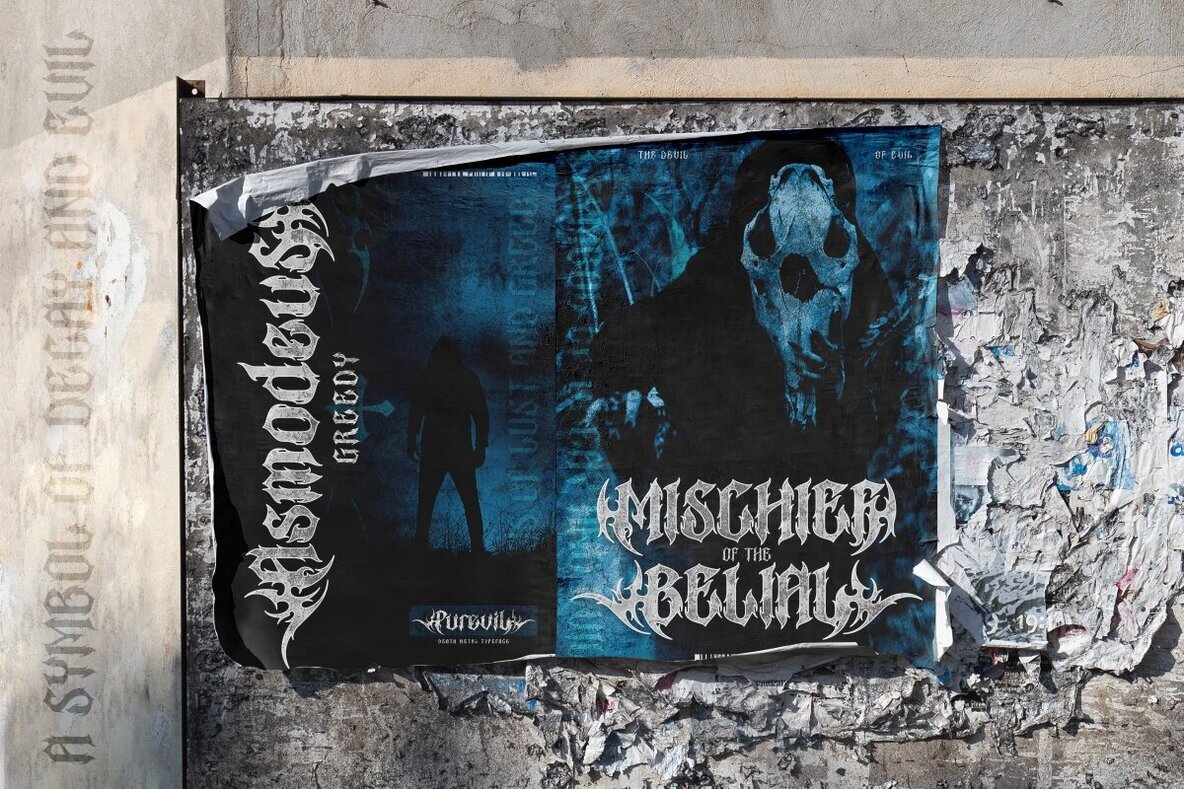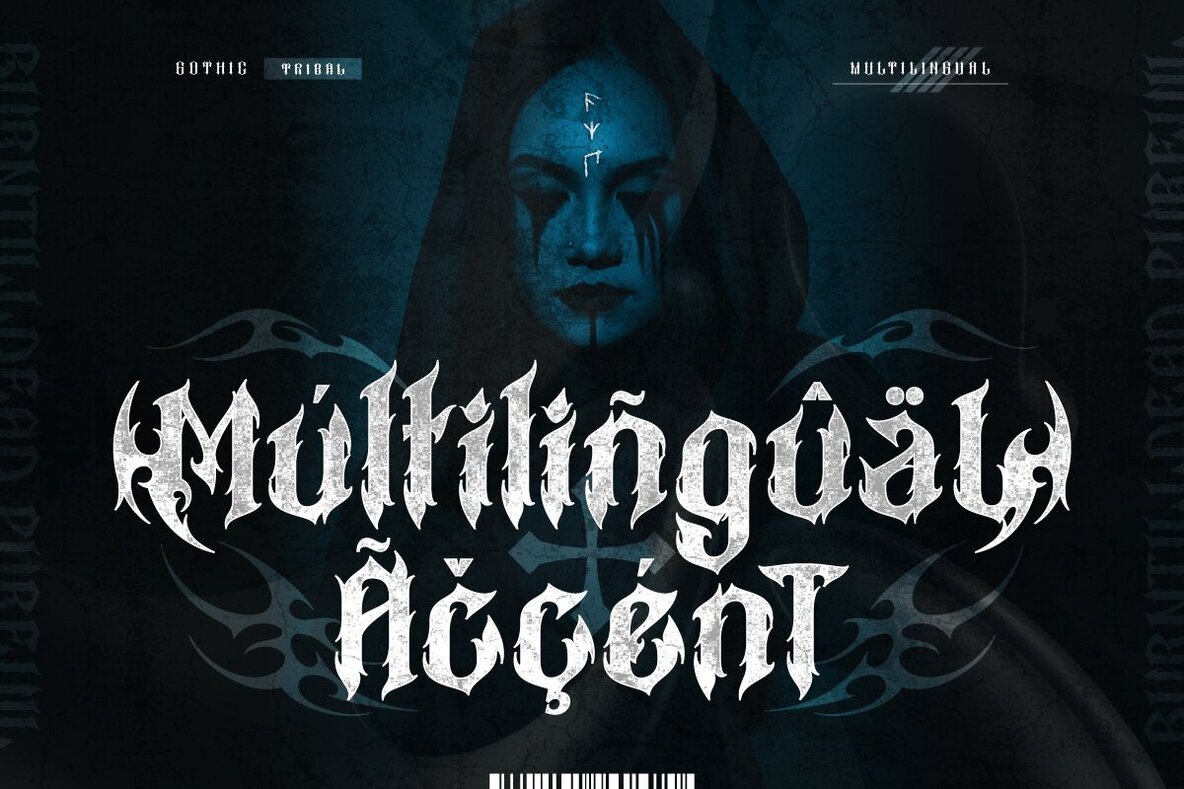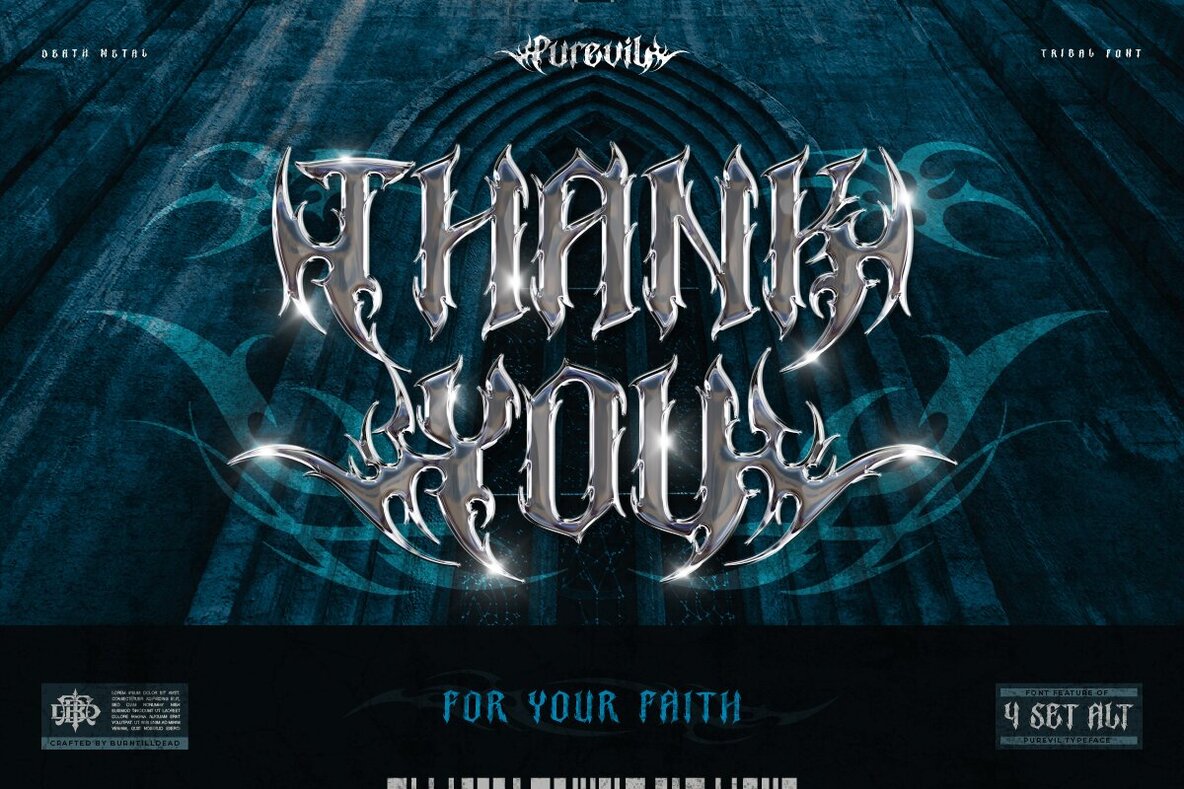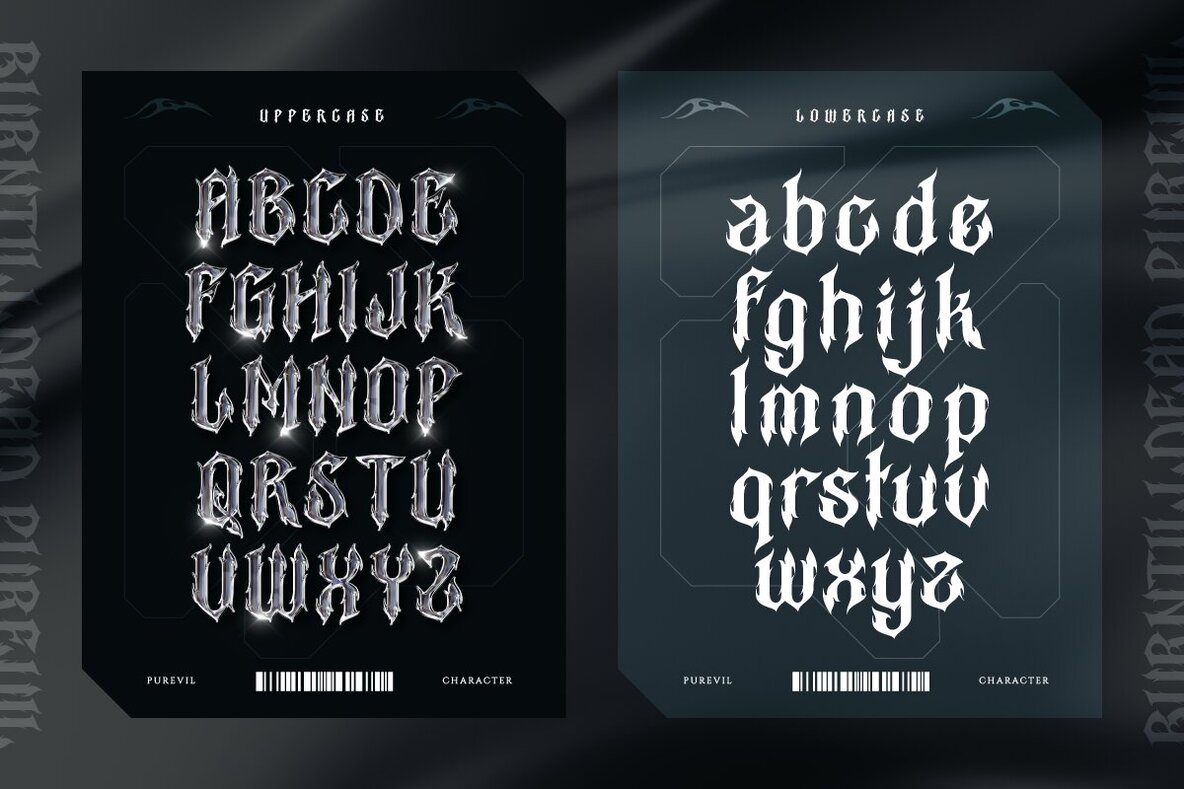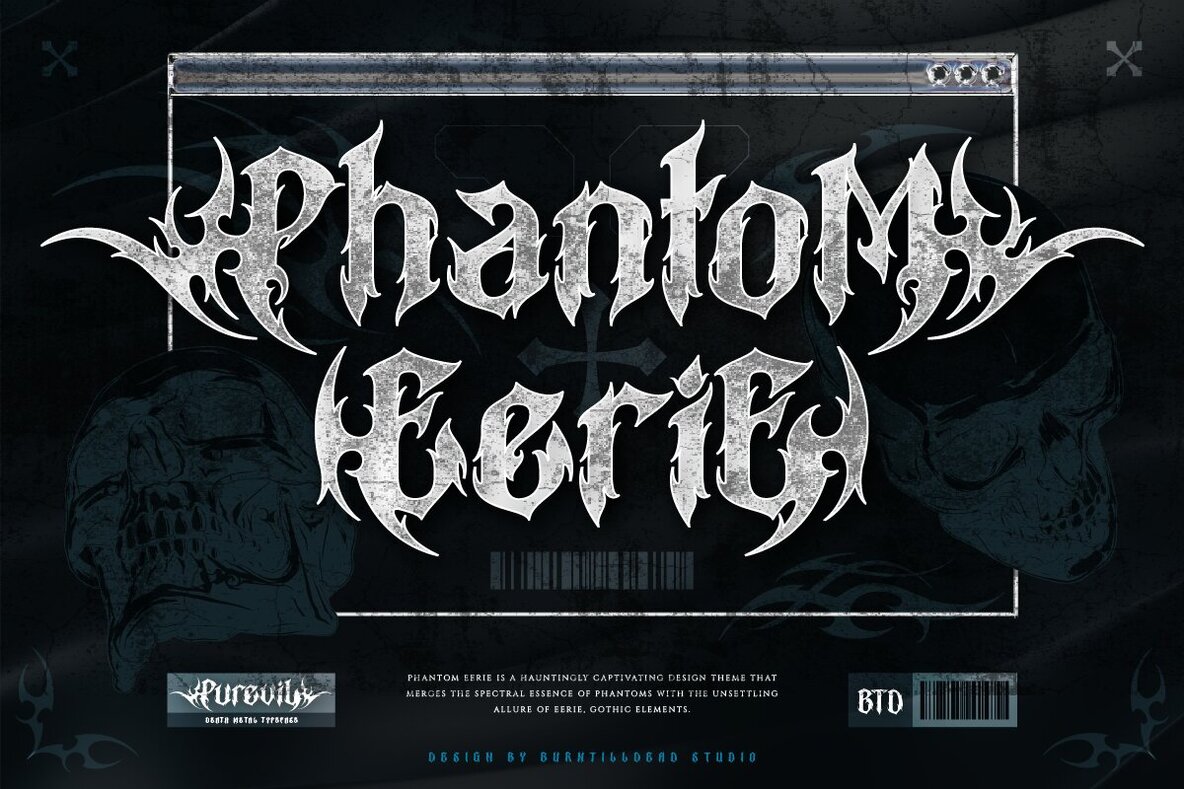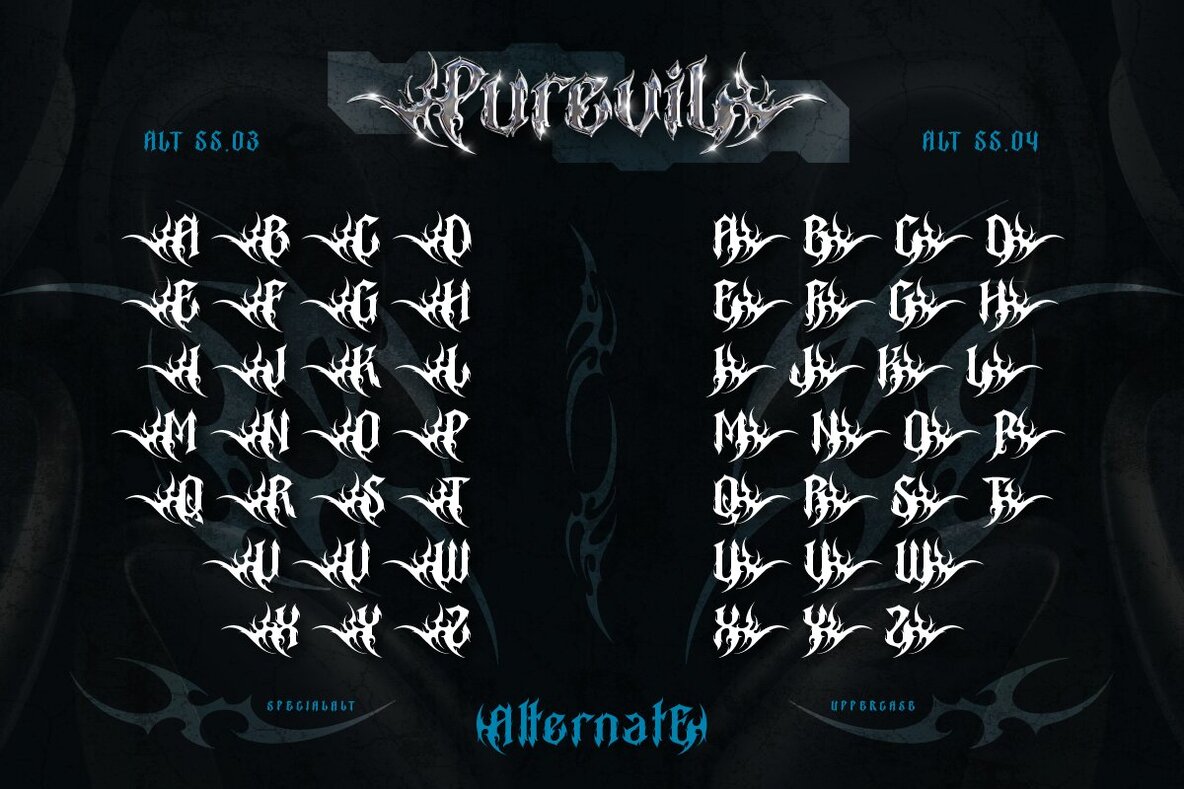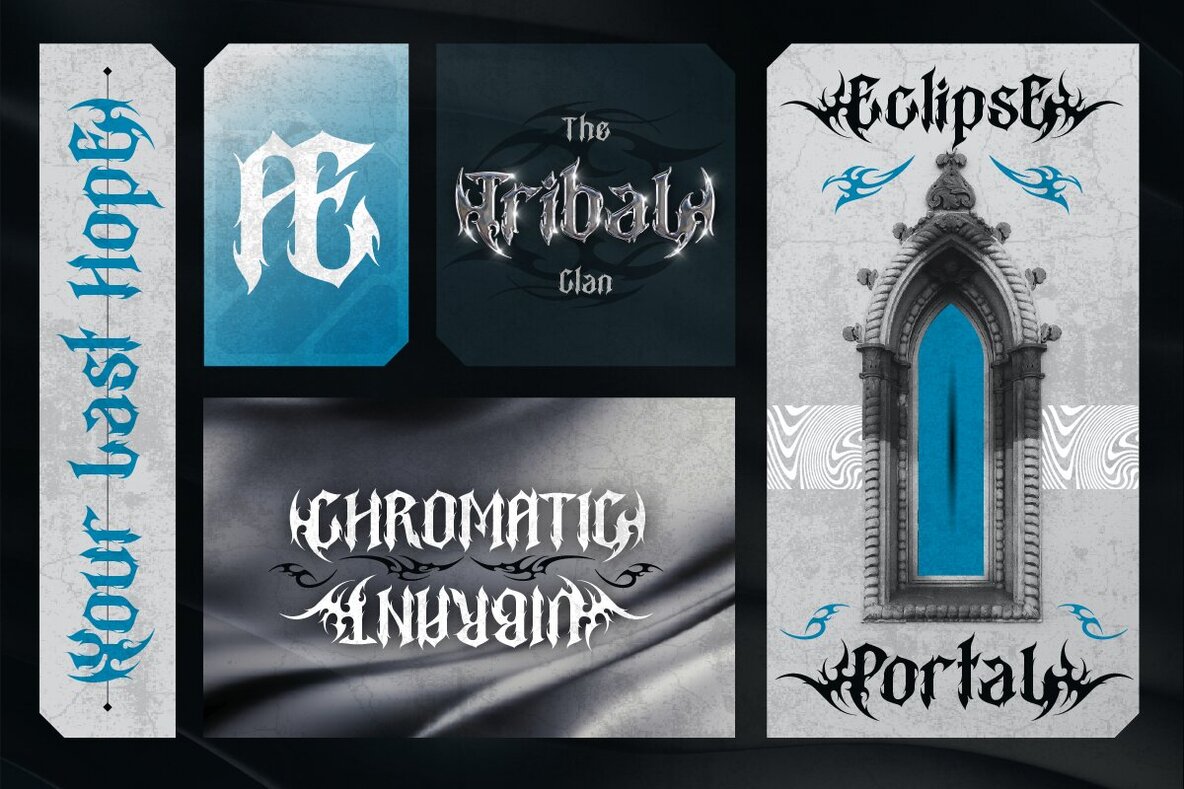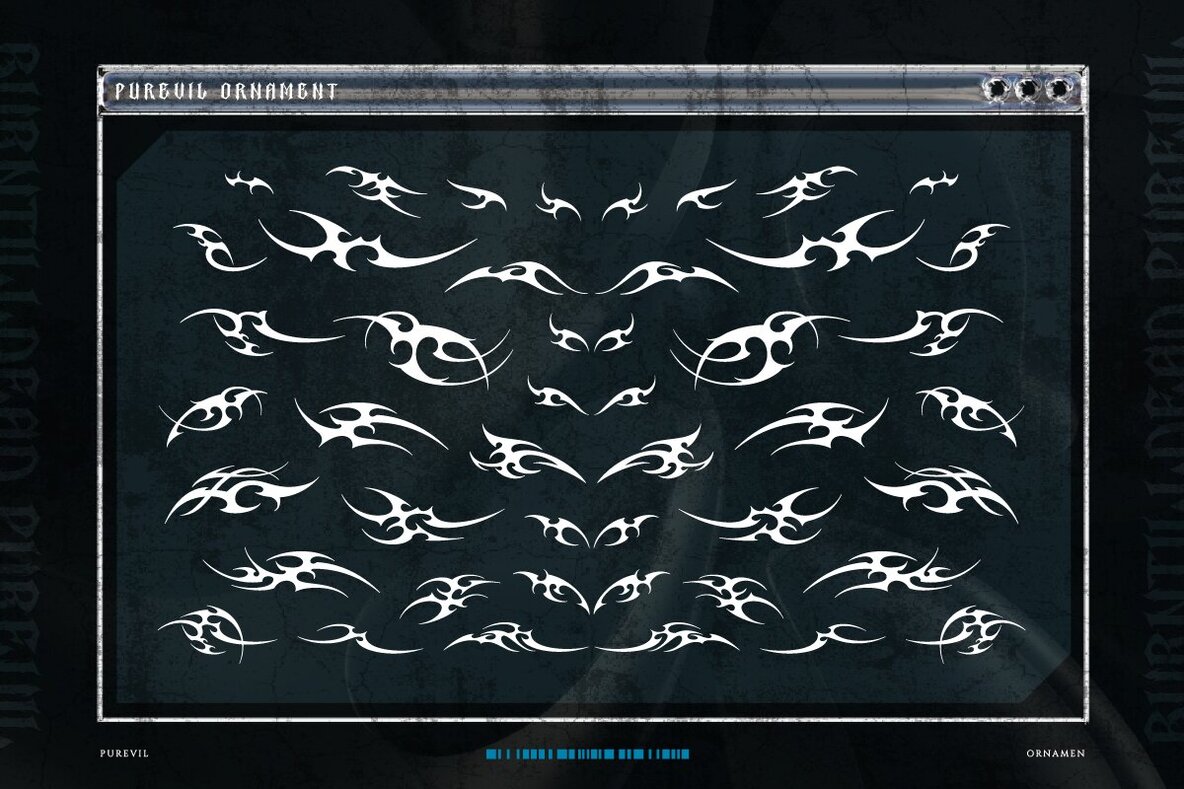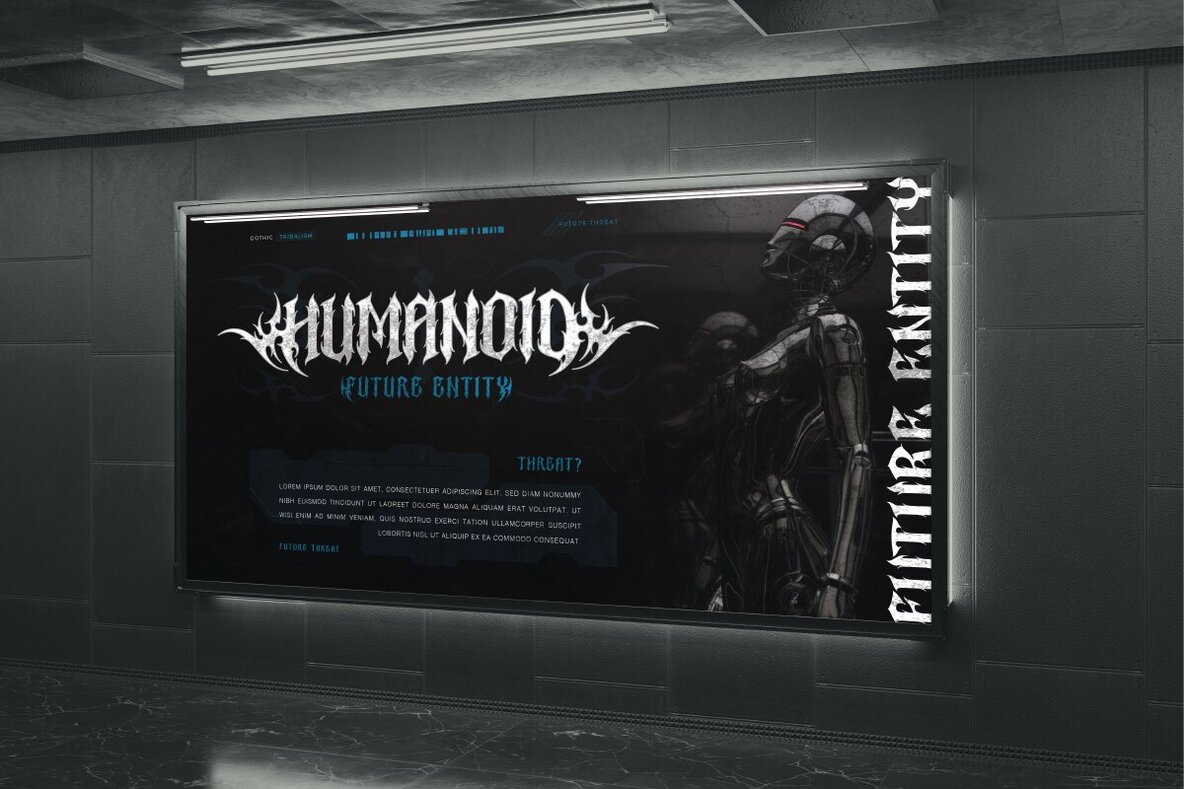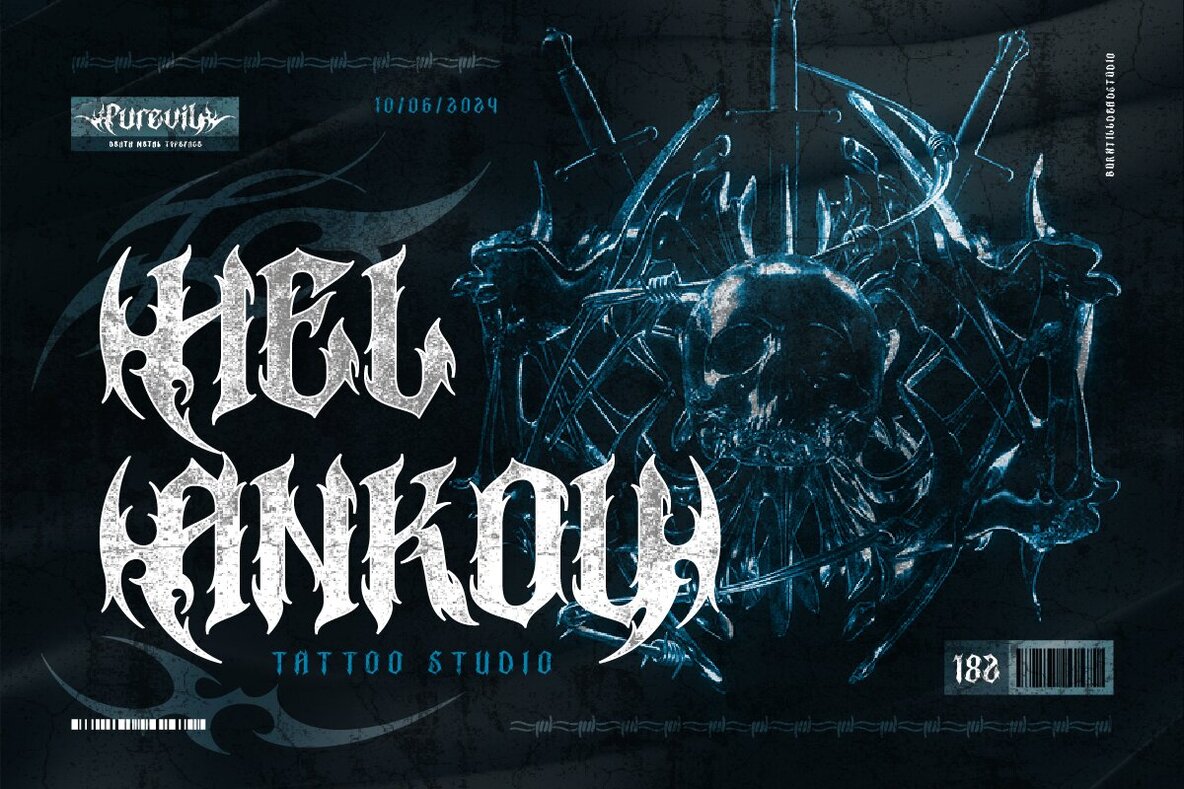
Purevil Font
This blackletter font is inspired by gothic and medieval calligraphy, making it an excellent choice for designs that seek an old English or historical aesthetic. The ornate and elaborate style of the font lends itself well to vintage-themed projects, including invitations, posters, book covers, and other decorative applications where a touch of drama and classic heritage is desired.